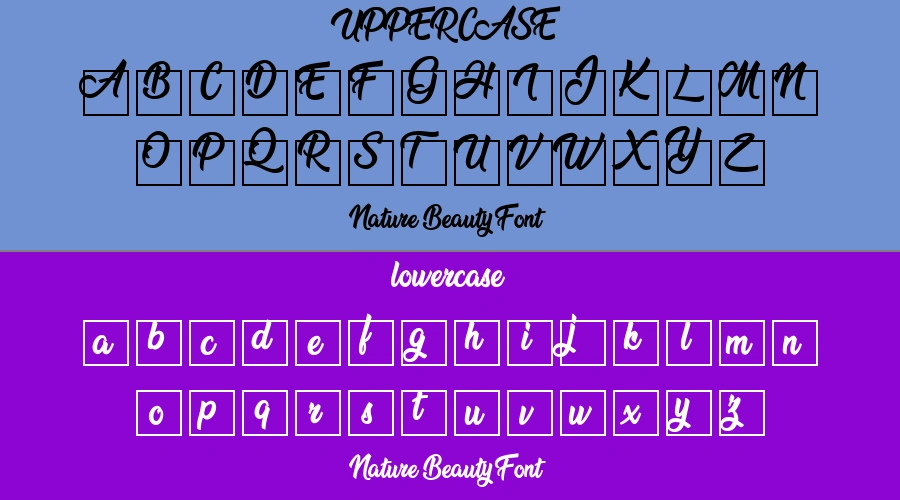
About Nature Beauty Font
Nature Beauty Font stands out for its distinctive combination of architectural precision and brand presence. Ideal for financial statements, it provides the value and aesthetic refinement that professional projects demand. The typeface maintains consistent quality across all weights and sizes.
Key features include refined organic curves and practical traditional figures, enhancing typographic expression. In identification tags applications, Nature Beauty Font demonstrates exceptional color consistency. The ascender height and research value contribute to its distinctive character and professional appeal.